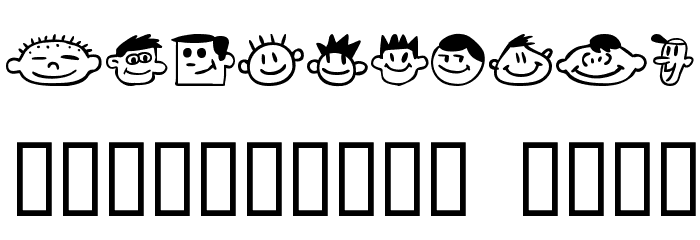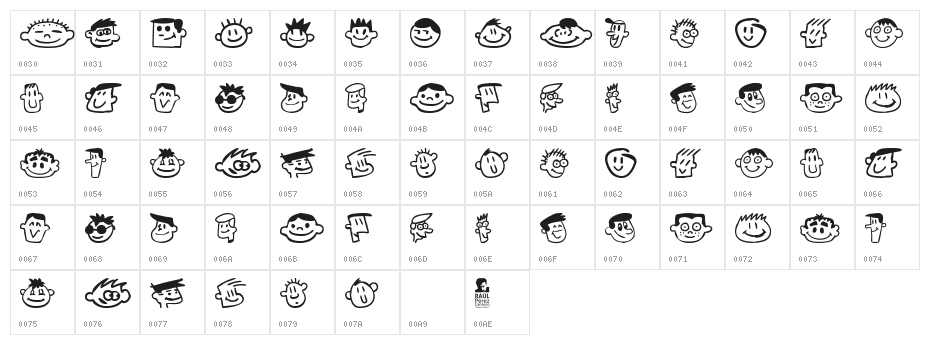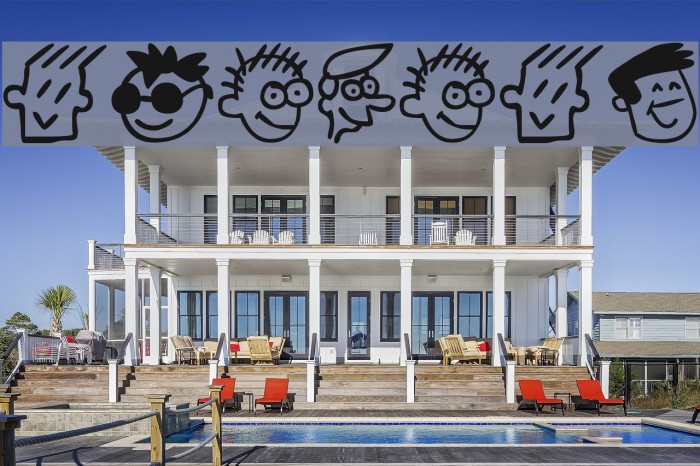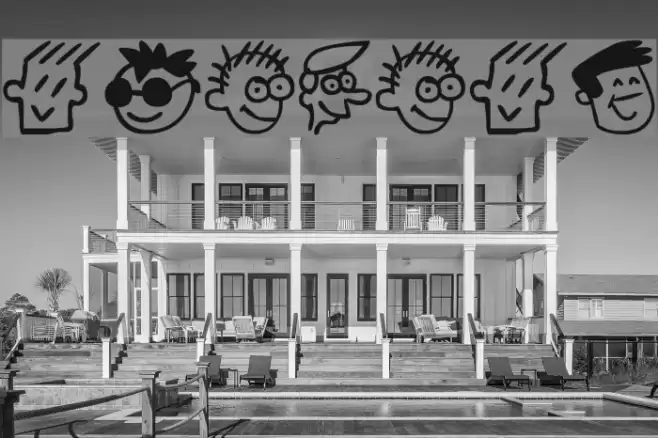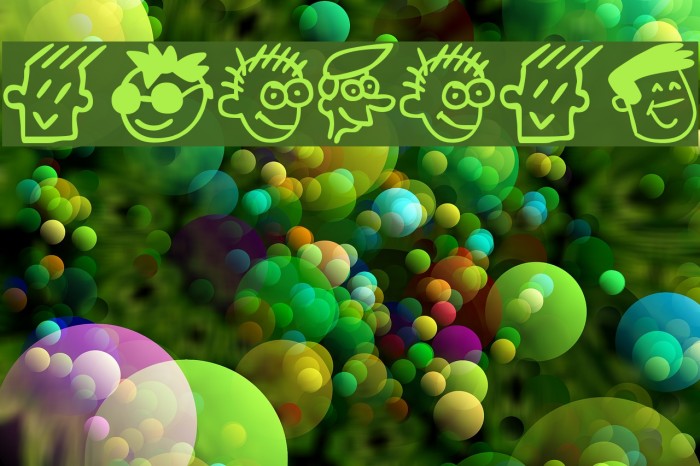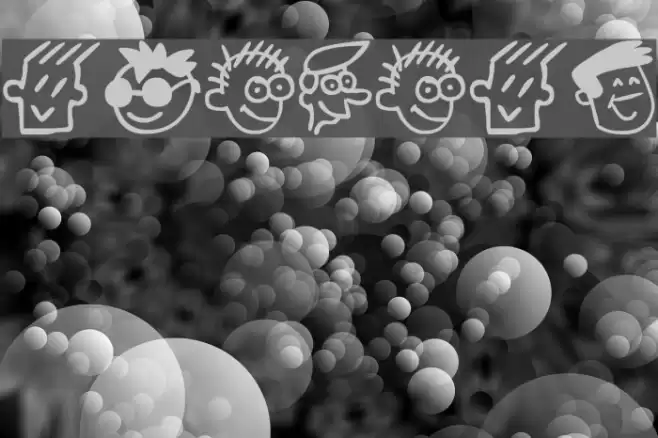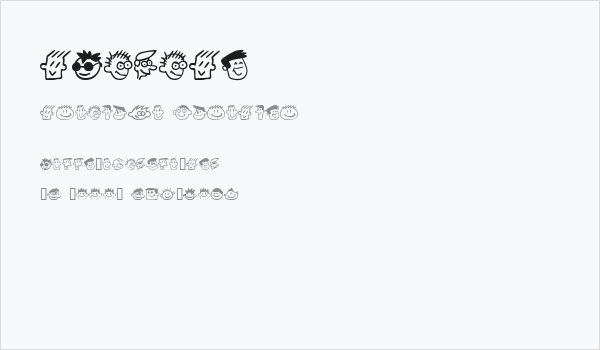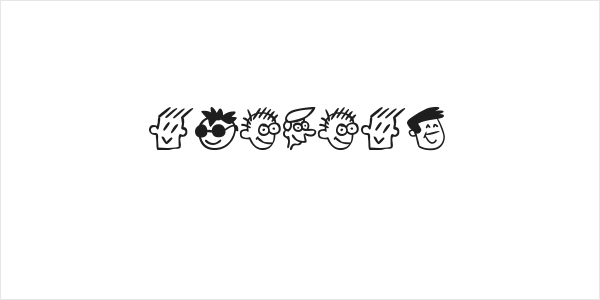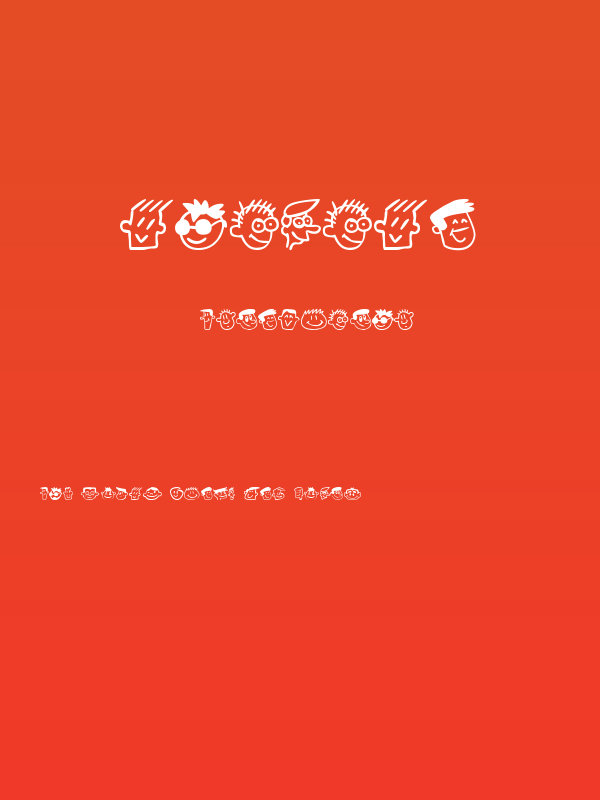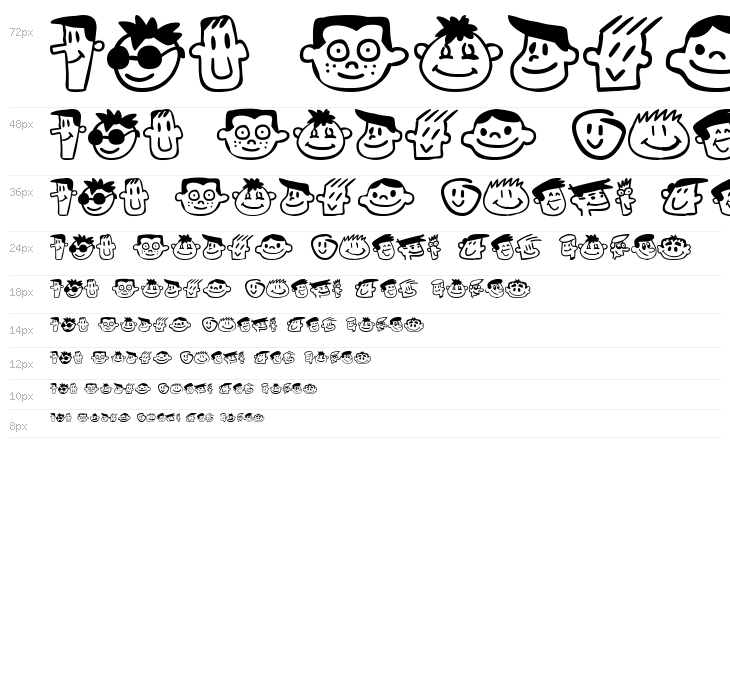
chamaco Font
chamaco Description
This is not a traditional font but rather a collection of playful, cartoon-style faces. Each character is represented by a unique, whimsical face illustration, showcasing a variety of expressions and hairstyles. The style is hand-drawn and informal, with bold lines and a fun, lighthearted aesthetic. The characters are consistent in their cartoonish style, making them suitable for creative and informal projects. The overall look is engaging and designed to bring a smile to the viewer's face.
| Use Case | Logos, Illustrations, Children's materials |
| Proposed Projects | Ideal for children's books, playful branding, comic strips, or any project requiring a whimsical touch. |